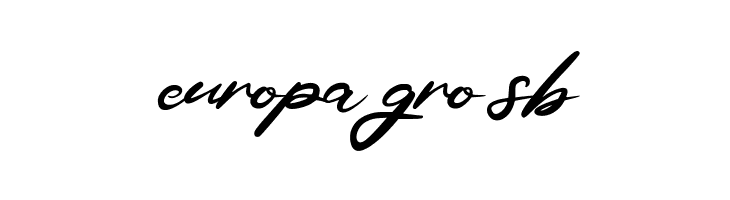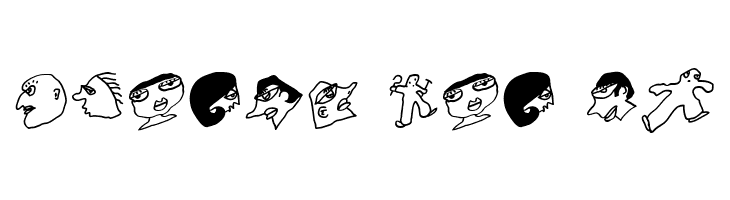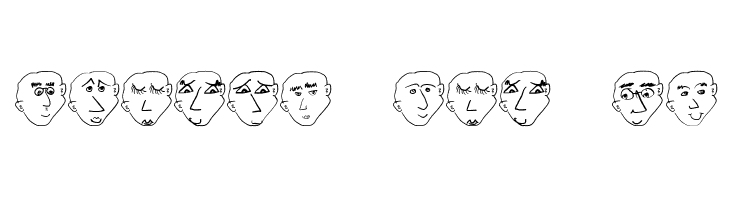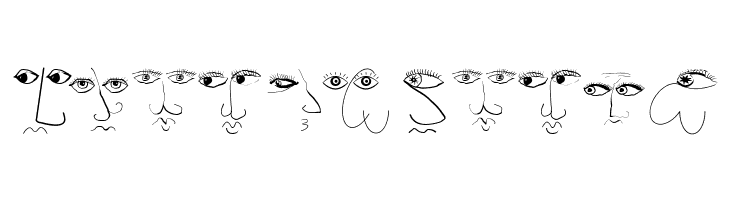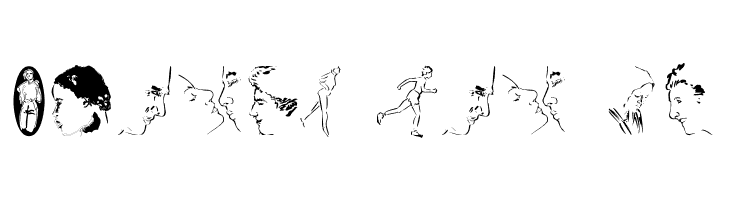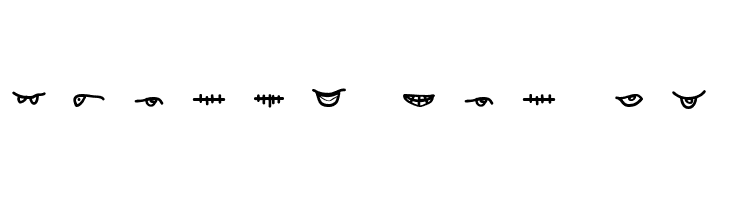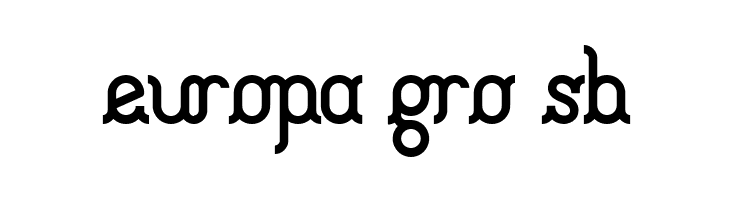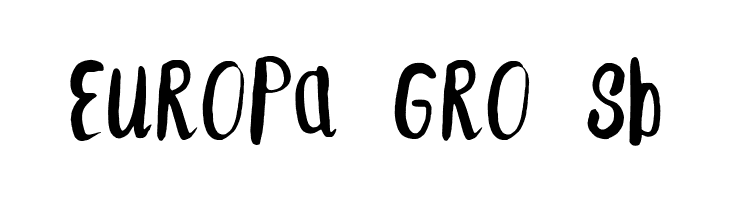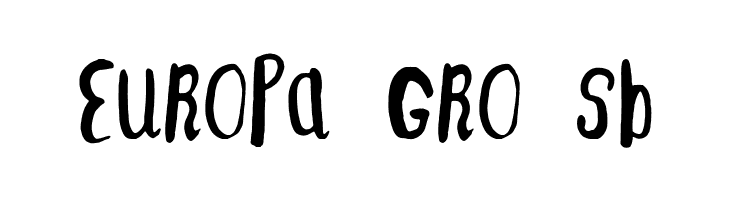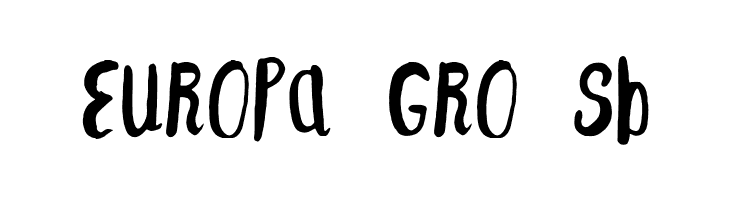
• EZBorder
Ornamental dingbat font with border and corner motifs.
• F... SAINT-TROPEZ
A playful, handwritten font with uneven strokes and a whimsical style.
• F... SAINT-TROPEZ-ALT
A bold, playful handwritten font with dynamic, irregular strokes.
• F... SAINT-TROPEZ-ALT2
A playful, handwritten-style font with bold, irregular strokes.
• FabCreaturesInverted
Playful, illustrated alien and creature icons in circular frames.
• Fabela FREE
A dynamic and fluid script font with elegant, flowing letterforms.
• Fabeltiere04
A decorative font with mythical creature silhouettes, perfect for fantasy-themed projects.
• FableBeings
A collection of whimsical silhouettes of mythical creatures.
• Fabrik
A modern, interconnected font with geometric lines and a bold presence.
• Fabrik
A modern, geometric font with continuous, looping lines.
• Fabrik Personal Use
A bold, elegant script font with flowing, cursive letterforms.
• Fabulous Vikings
• FaceLaboratory
Abstract and artistic representations resembling faces within diamond shapes.
• Faces
Illustrative, face-themed decorative display font.
• FacesAlphabetBeta
A playful and artistic font featuring characters with facial features.
• FacesAndCaps
A bold, circular, and geometric decorative font with a modern flair.
• FacesFaces
Playful, hand-drawn font made of expressive cartoon faces.
• FacesTypes
Hand-drawn, abstract face and figure font with a playful, artistic style.
• FaceToFace
An artistic font with characters resembling abstract facial elements.
• FaceToolsbox
Hand-drawn dingbat font with cartoon facial features and heads.
• Facets NF